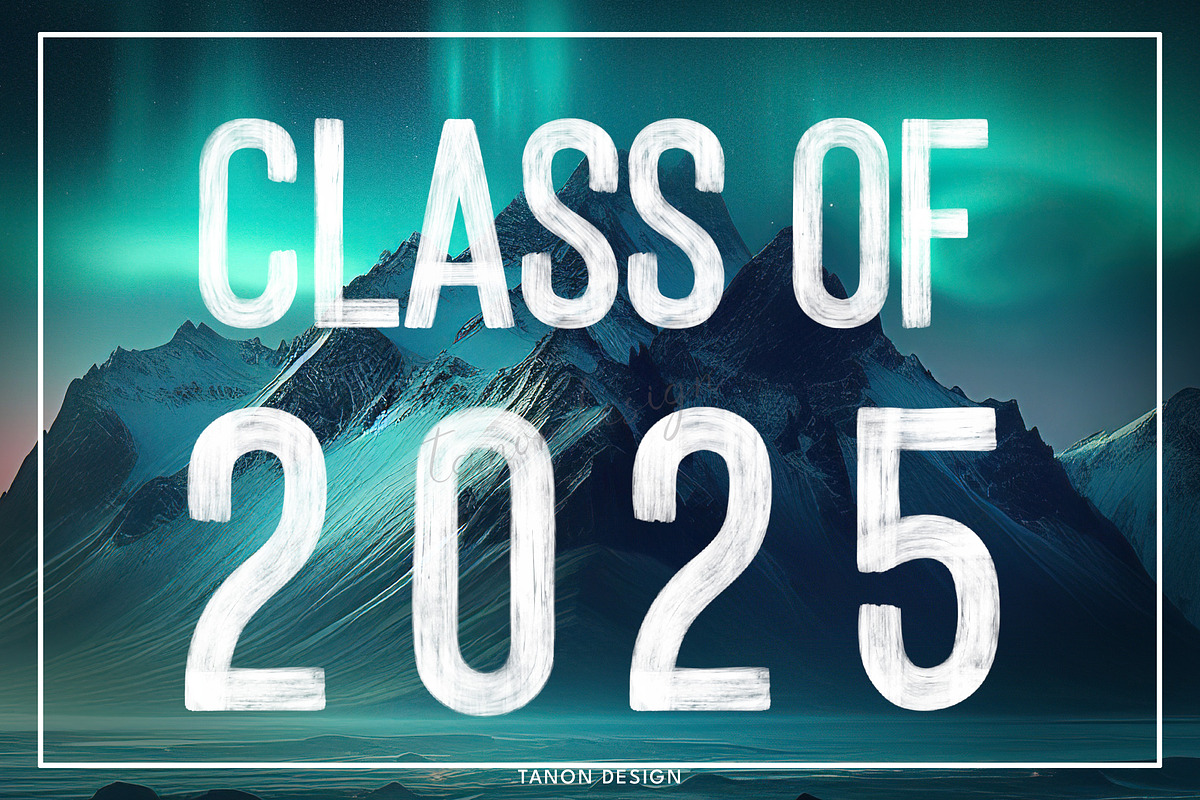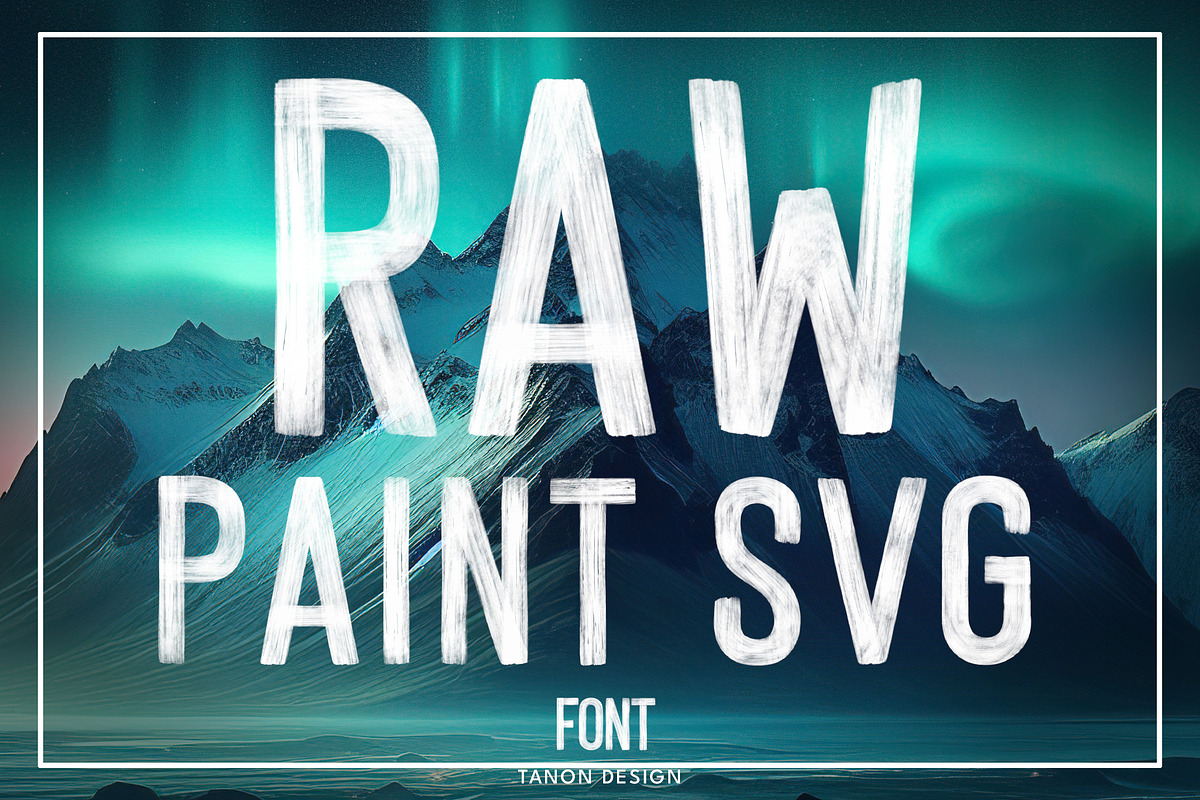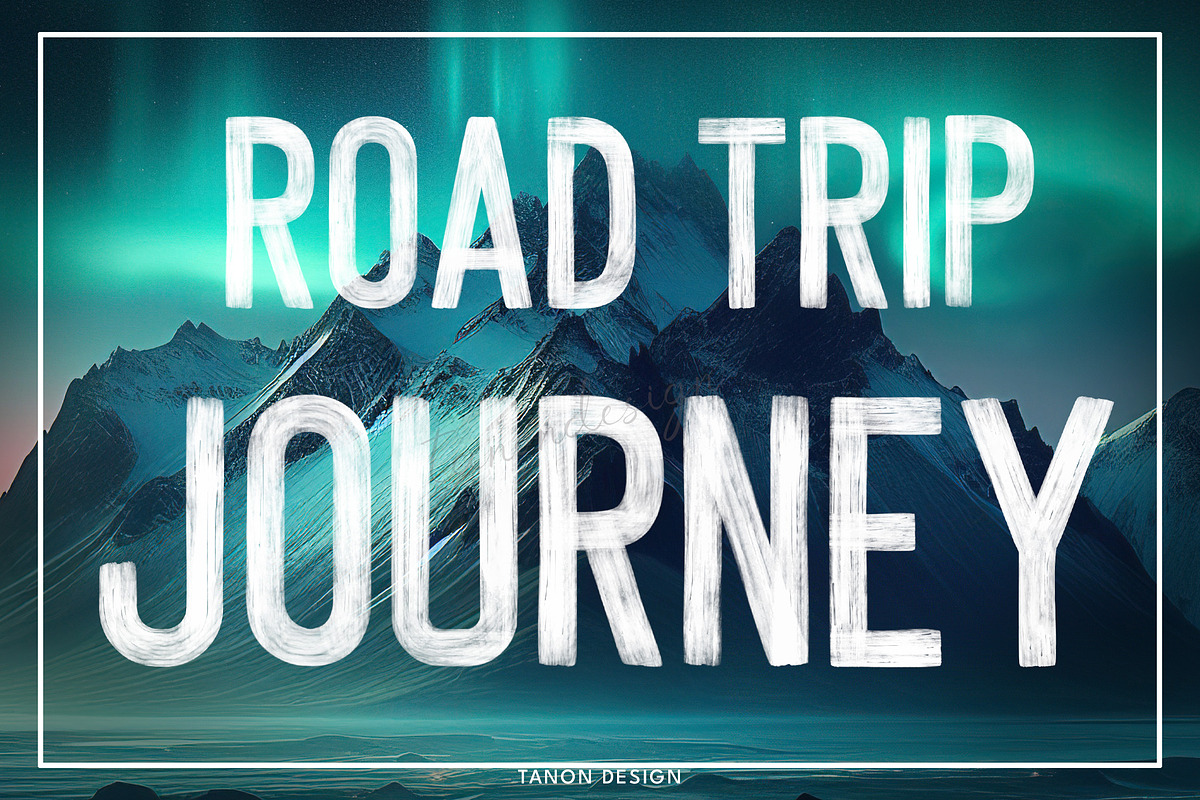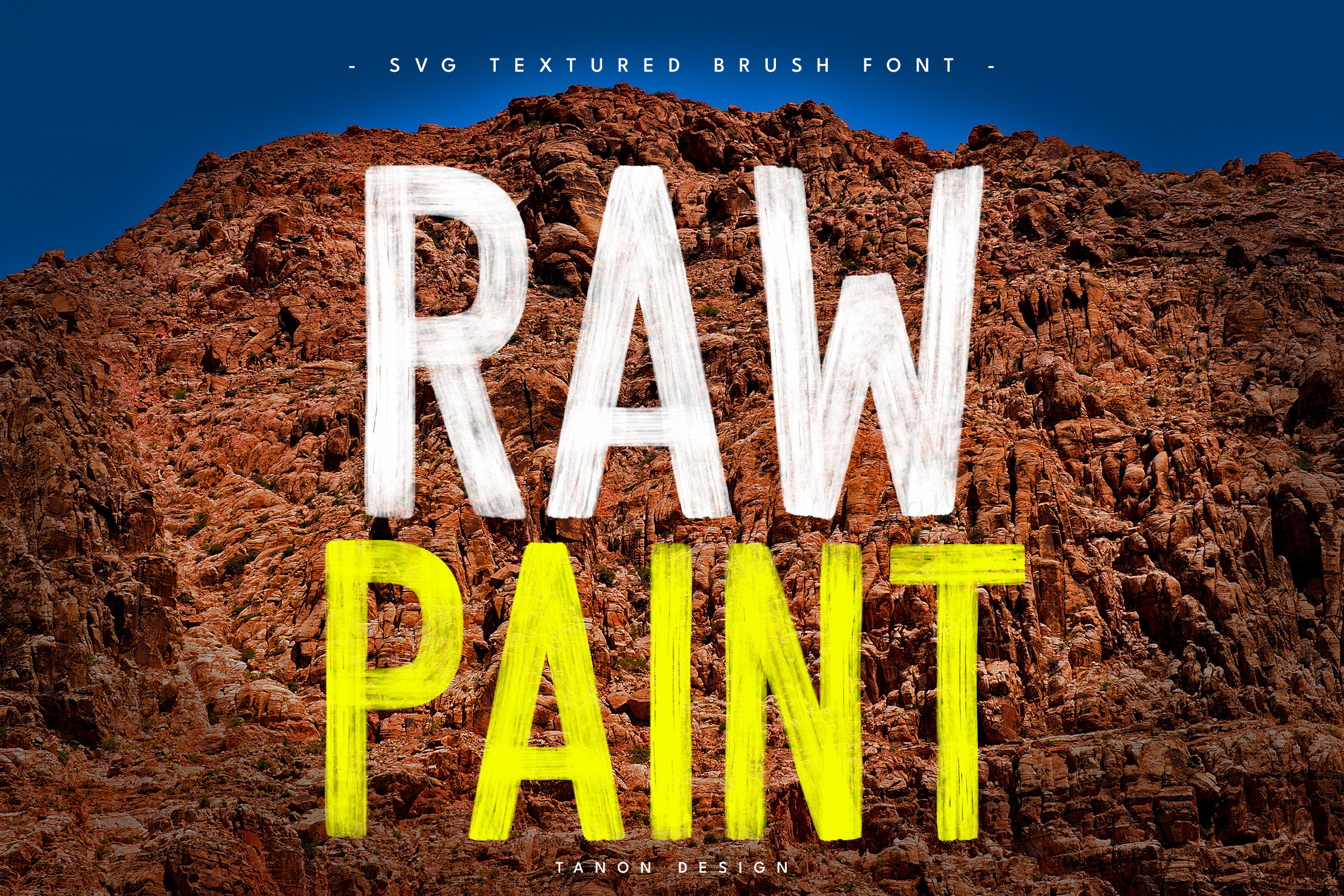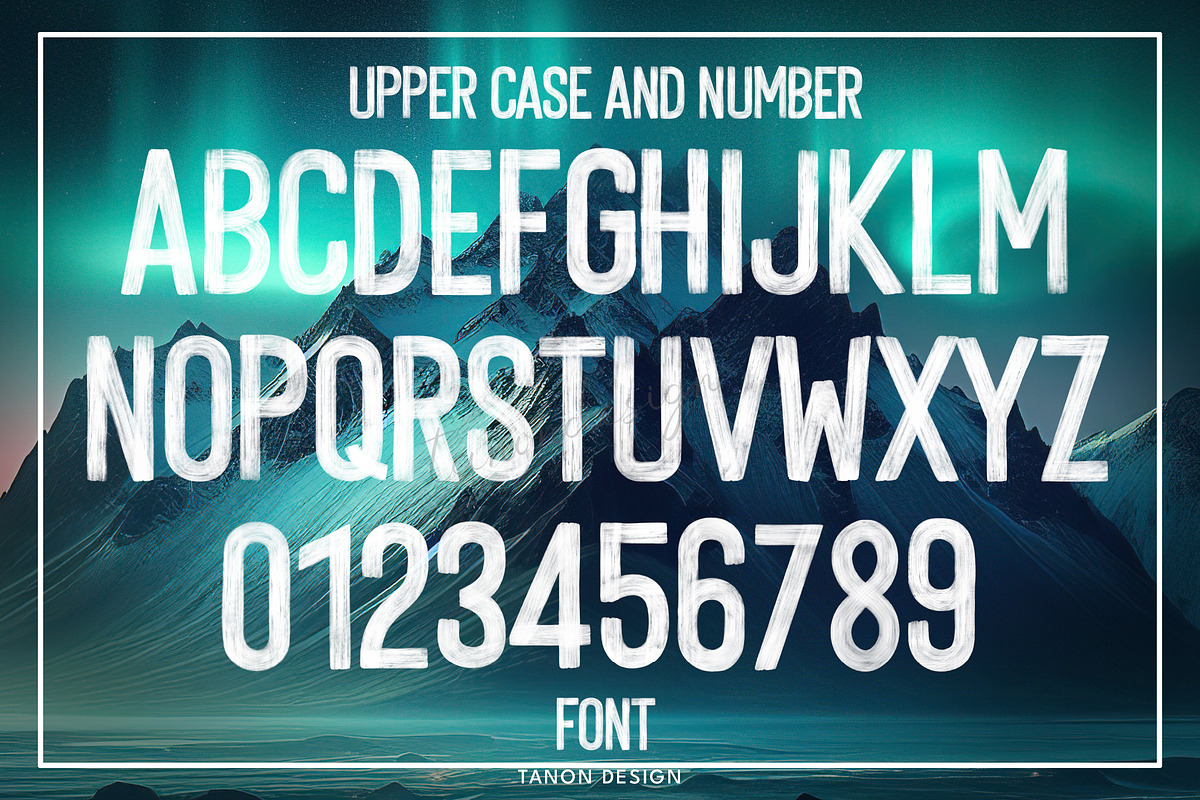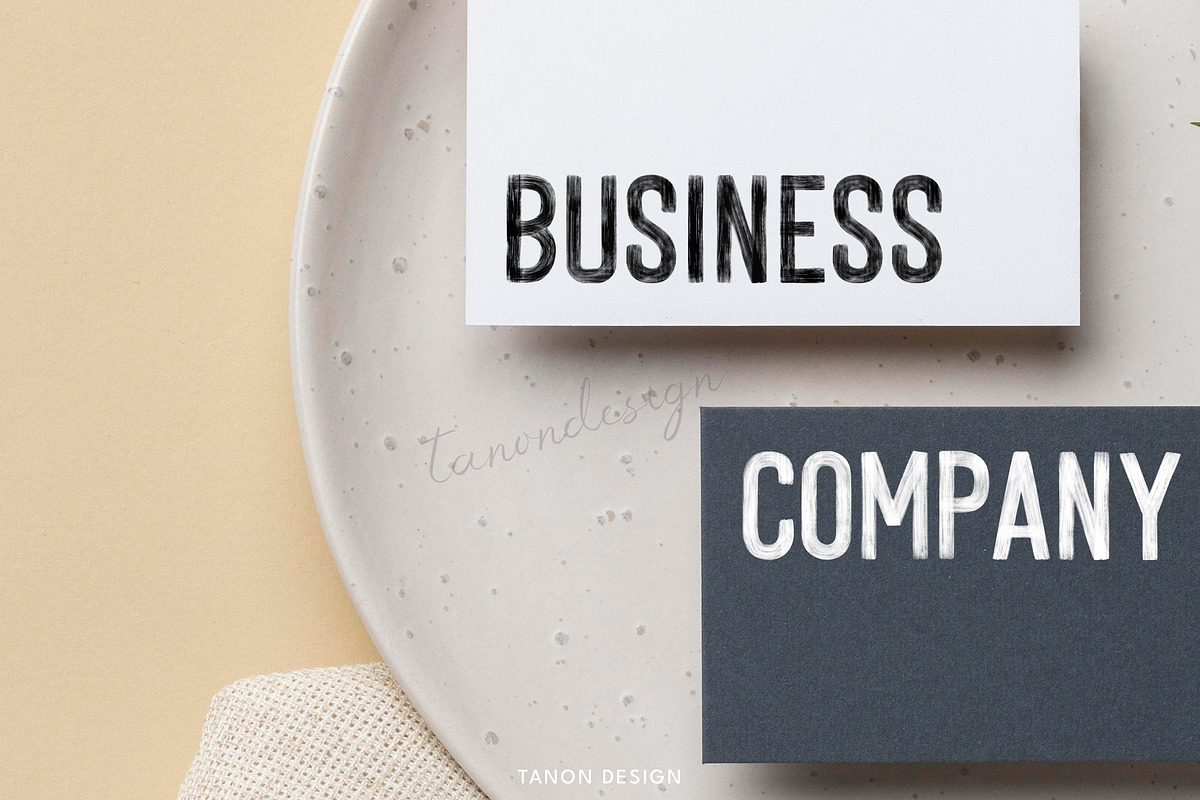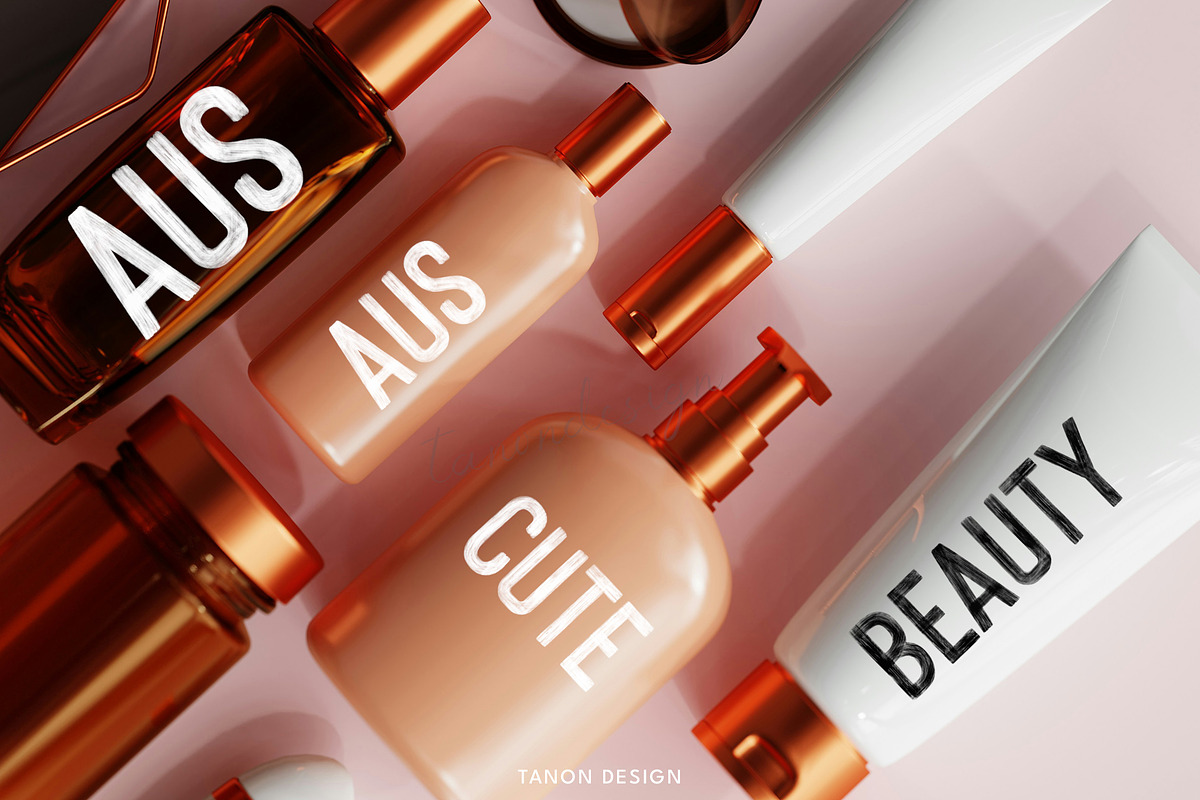
Raw Paint SVG Textured Brush font
Raw Paint SVG Textured Brush font. Realistic brush textured font. Brush SVG Bitmap Color font.
Introducing “Raw Paint” Textured brush SVG font. realistic brush fonts, handwritten brush font. It will look fantastic on all your project designs including t-shirt designs, mug designs, digital designs, crafts, cards, and any projects!